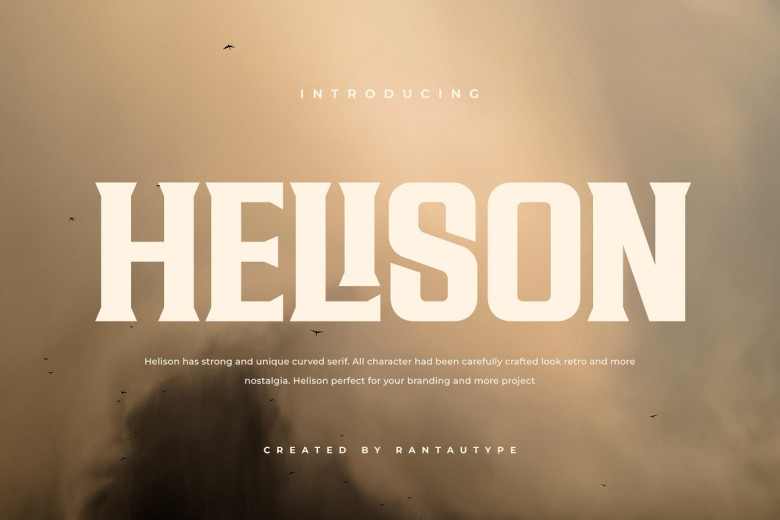
Helison Font
Helison is an elegant and powerful presentation serif typeface with its own curving shape that was carefully designed to evoke nostalgia for an earlier time period. This font design is both elegant, contemporary, luxurious appealing, high-end, simple to use and ideal for creating chic contemporary designs such as titles, logos, covers, title displays, branding magazines or displays magazines. There are various applications of this font making your work look professional! Using Helison will take it further!